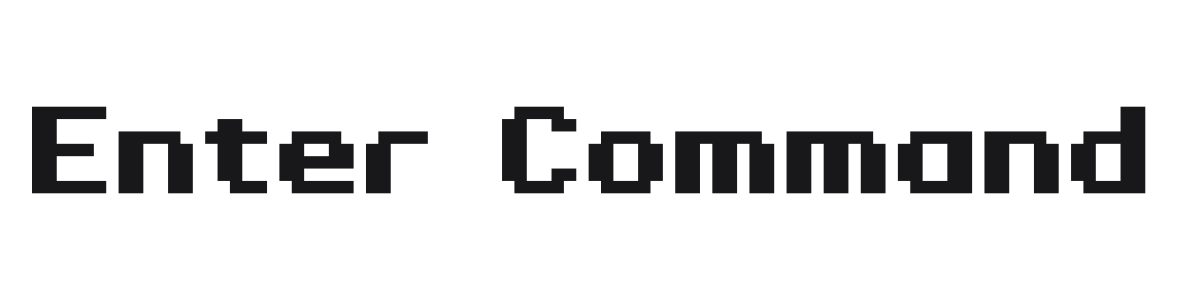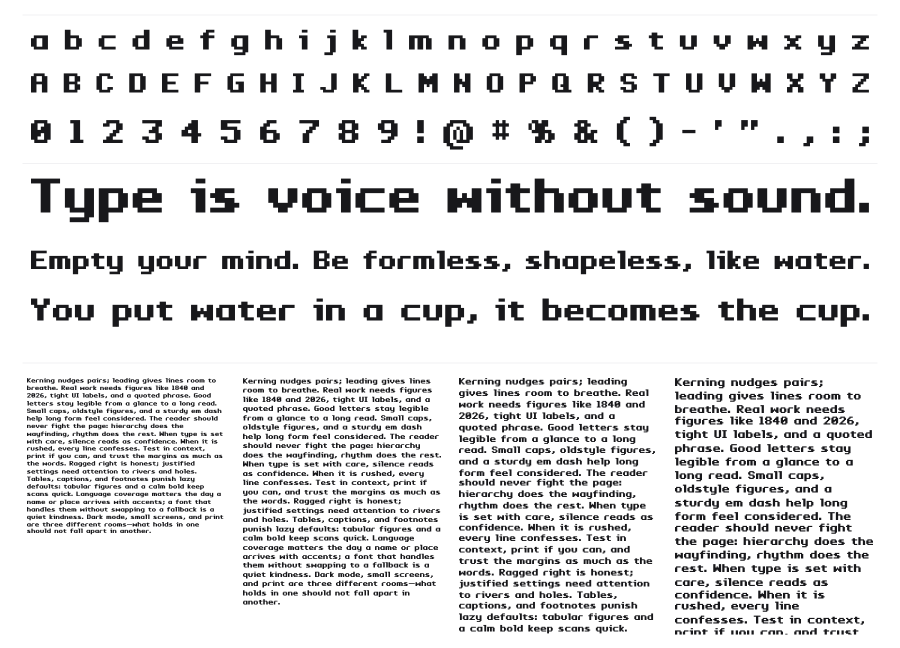
Enter Command
Enter Command is a heavy 8-bit bitmap font built entirely from square pixel blocks. The bold weight and large x-height give it an authoritative, screen-native feel rooted in early computing and arcade culture. It lands naturally in gaming interfaces, retro branding, and anywhere that needs a deliberate nod to digital nostalgia.